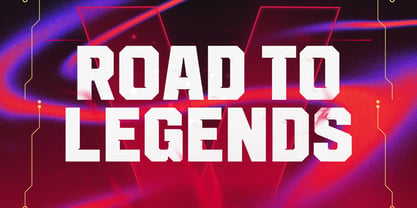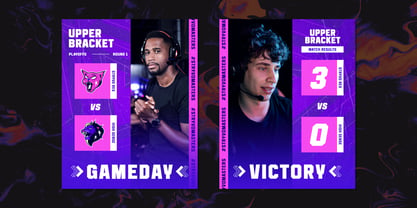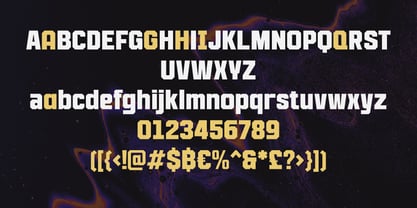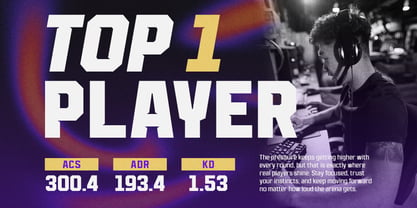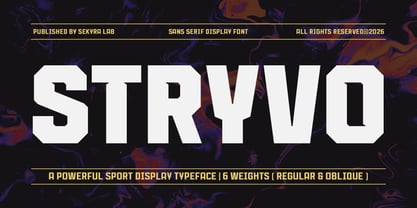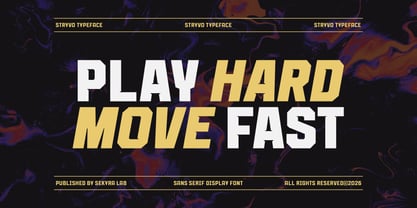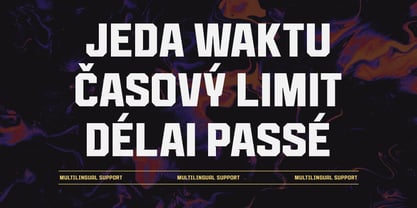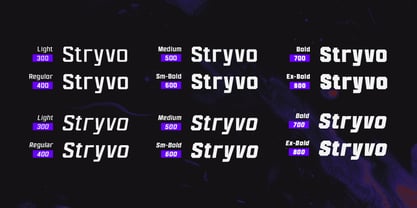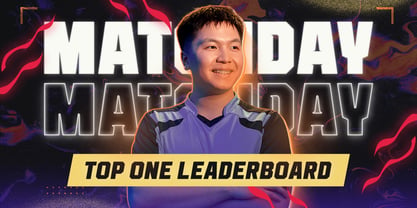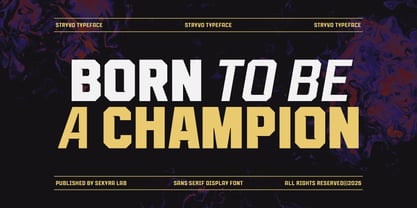
Stryvo
The Stryvo Font Family was designed by Hanif Al Irsyad and published by Sekyra Lab. Stryvo contains 12 styles and family package options. More about this family
Stryvo is a modern sport display font family built for bold headlines, competitive visuals, and high-impact typography. Featuring sharp geometric shapes, strong proportions, and a clean athletic aesthetic, Stryvo delivers a powerful visual presence that works perfectly for energetic and fast-paced creative projects.
Designed with versatility in mind, Stryvo combines modern sports-inspired letterforms with clean readability, making it ideal for both digital and print applications. Whether used for esports graphics, gaming content, event posters, social media visuals, branding systems, video thumbnails, streaming overlays, or promotional campaigns, Stryvo helps your typography stand out with confidence and intensity.
This font family includes 6 weights and 2 styles, giving you full flexibility to create dynamic typography compositions across different visual styles.